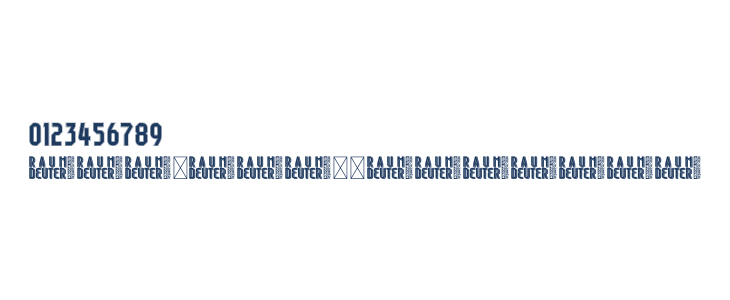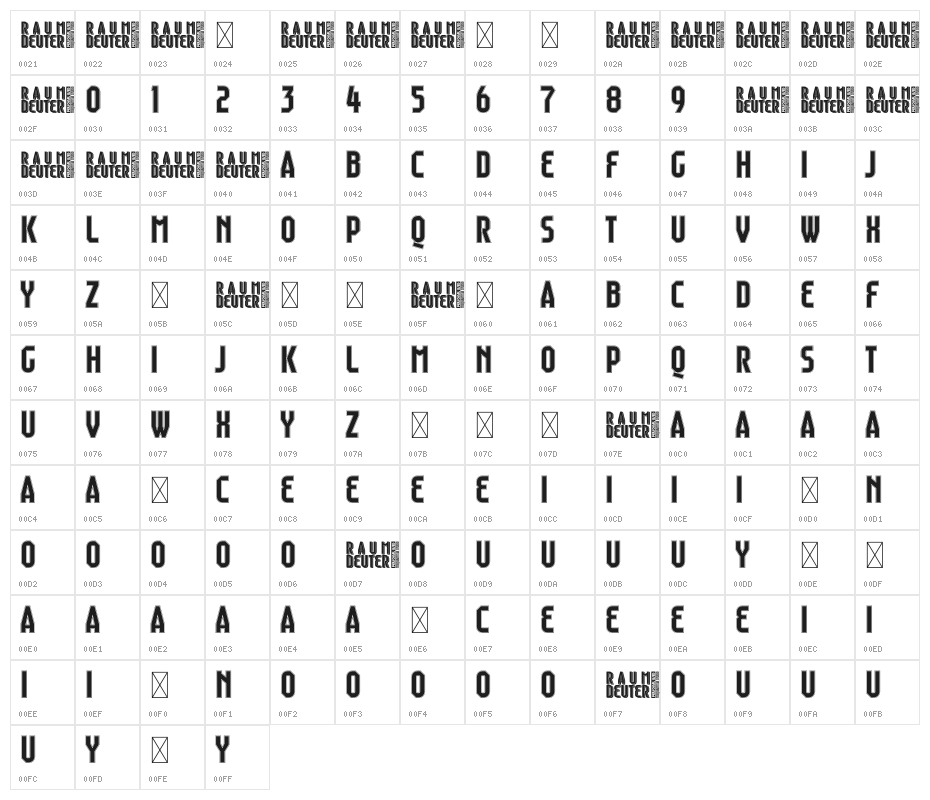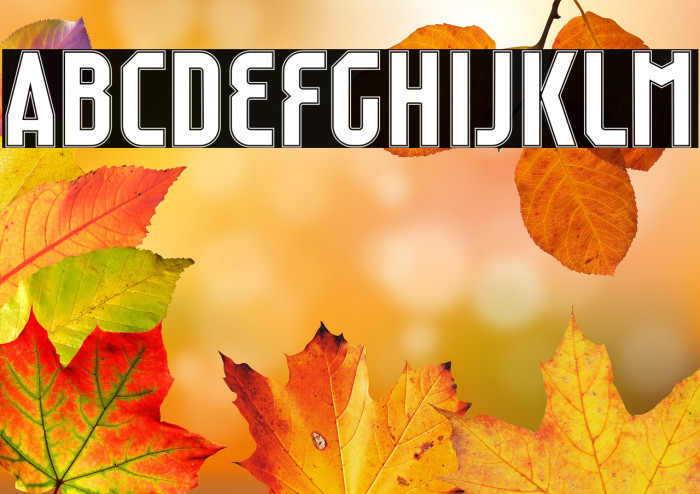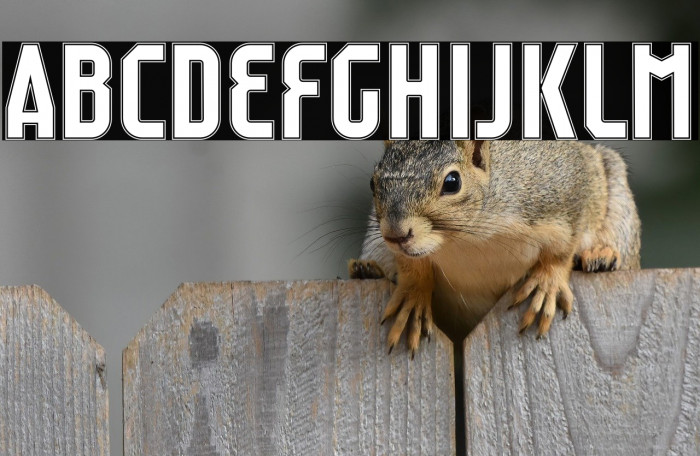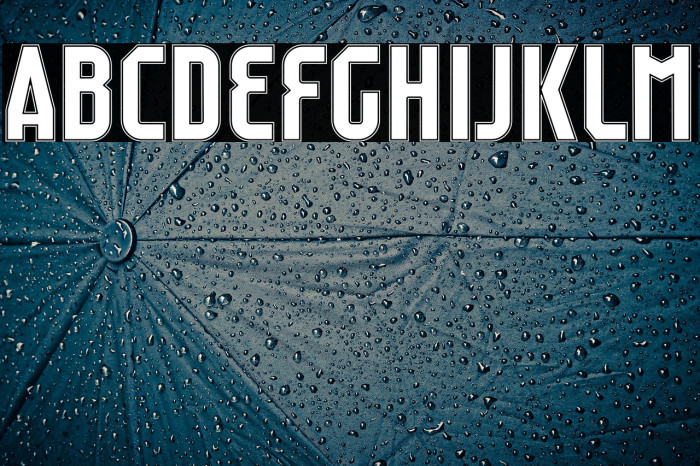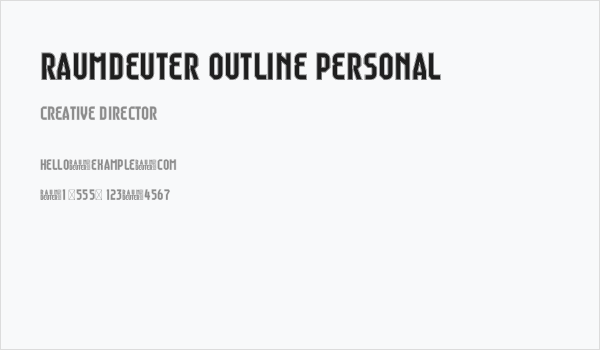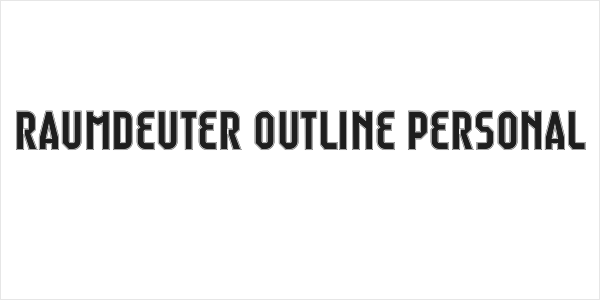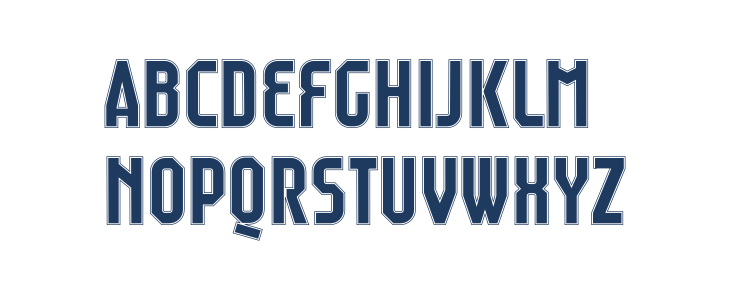
Raumdeuter Outline Personal Font
Raumdeuter Outline Personal Description
This font features a bold and striking outline style, characterized by its geometric and angular letterforms. The uppercase letters are prominent with a strong presence, making them ideal for attention-grabbing designs. The numbers and special characters maintain the same bold outline, ensuring consistency across all characters. The font's design is modern and edgy, suitable for projects that require a standout typographic element. Its structured form and clear lines make it versatile for various design applications.
| Proposed Projects | Ideal for posters, headlines, branding, and any design that requires a bold statement. |